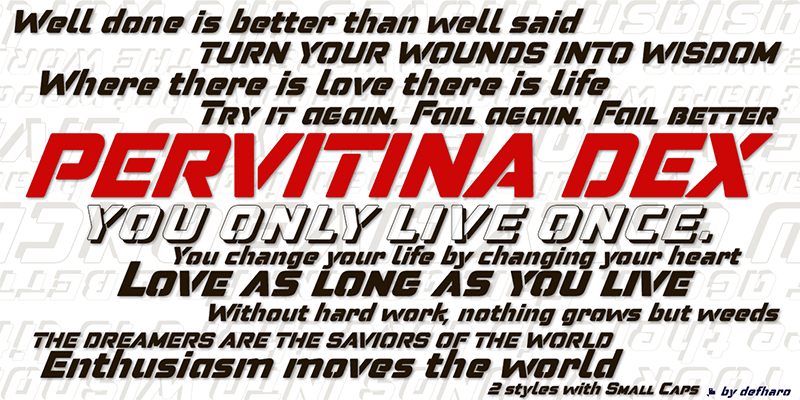
Pervitina Dex is a display type, thick and inclined at 22� and Neo-Stencil style with rounded corners that includes small letters, several sets of numerals, the bitcoin symbol and other cryptocurrencies. An exclusive font for headlines and brands with superior readability and careful Kerning settings. =========== FULL VERSIONS & LICENSES: https://defharo.com/fonts/pervitina-dex/ |